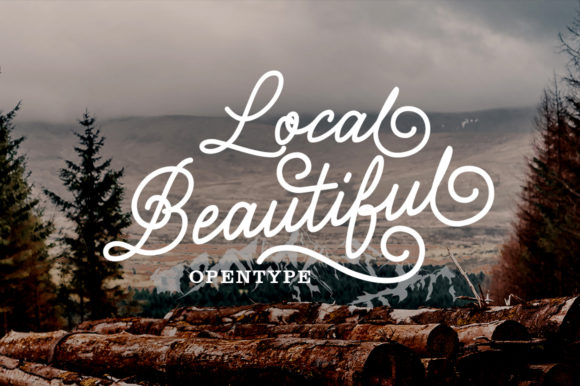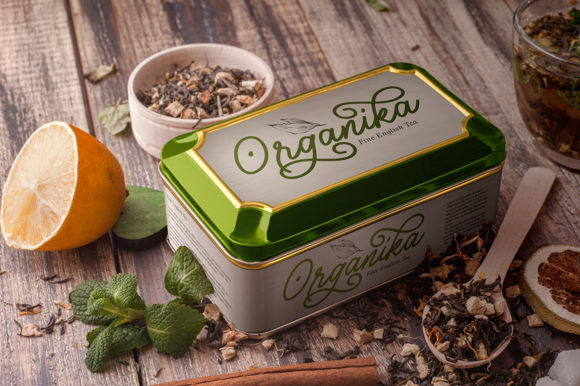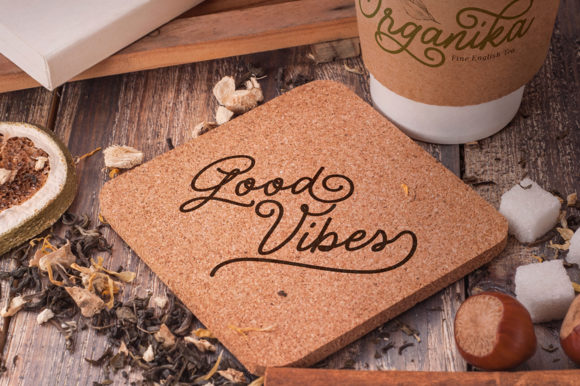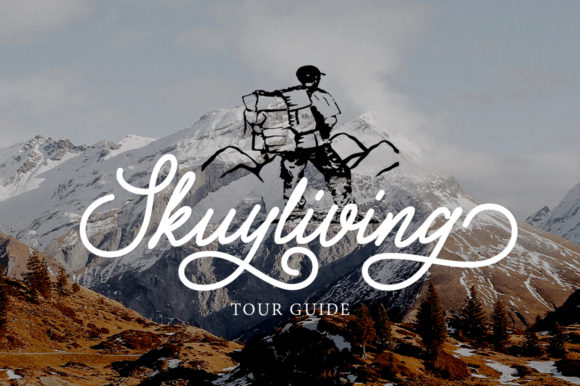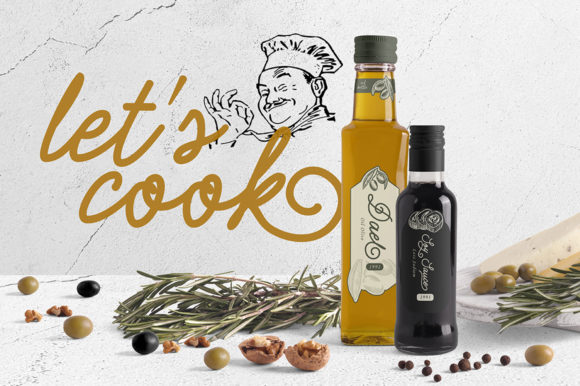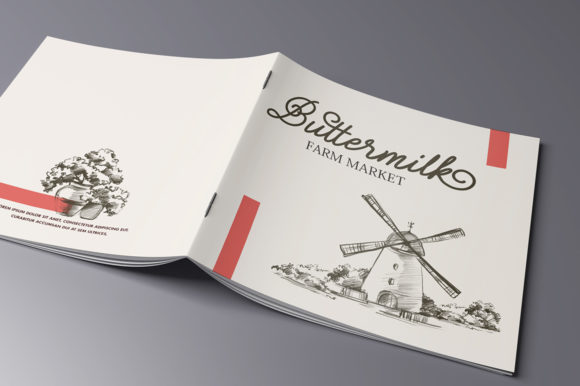
Introducing Drama Quality Font: Elevate Your Designs with a Cute and Swashy Handwritten Style
Are you on the hunt for a font that adds a touch of personality and elegance to your designs? Look no further than Drama Quality, a beautiful handwritten font that exudes warmth and friendliness. This stunning script font is perfect for designers, crafters, and DIY enthusiasts looking to add a creative flair to their projects.
What Makes Drama Quality Font So Special?
Drama Quality is a versatile and highly decorative font that boasts an incredibly friendly feel. Its gorgeous swashes and ligatures make it an excellent choice for a wide range of design applications, from Instagram posts and stories to calligraphy scripts and DIY projects. With Drama Quality, you can transform any creative idea into a true masterpiece.
Key Features of Drama Quality Font
- Alternate Glyphs and Ligatures: The font features a wealth of special features, including alternate glyphs and ligatures. These elements allow you to add an extra layer of creativity and sophistication to your designs.
- Swashes and Flourishes: Drama Quality’s swashes and flourishes are carefully crafted to add a touch of elegance and drama to your designs. Use them to create stunning headings, titles, and quotes.
- Cute and Friendly Feel: The font’s handwritten style gives it a warm and approachable feel, making it perfect for designs that require a personal touch.
Use Cases for Drama Quality Font
Drama Quality is an incredibly versatile font that can be used in a variety of design applications, including:
- Instagram and Social Media: Use Drama Quality to create stunning Instagram posts, stories, and captions that stand out from the crowd.
- Calligraphy and Hand Lettering: The font’s beautiful swashes and ligatures make it an excellent choice for calligraphy scripts and hand lettering projects.
- DIY Projects: Add a touch of elegance and sophistication to your DIY projects, such as handmade cards, invitations, and crafts.
- Branding and Packaging: Use Drama Quality to create eye-catching brand identities, packaging labels, and marketing materials.
Drama Quality is a truly exceptional font that offers a unique blend of elegance, sophistication, and friendliness. With its gorgeous swashes, ligatures, and PUA encoding, this font is perfect for designers, crafters, and DIY enthusiasts looking to add a creative flair to their projects. Whether you’re working on a branding project, social media design, or DIY craft, Drama Quality is sure to elevate your designs to the next level.